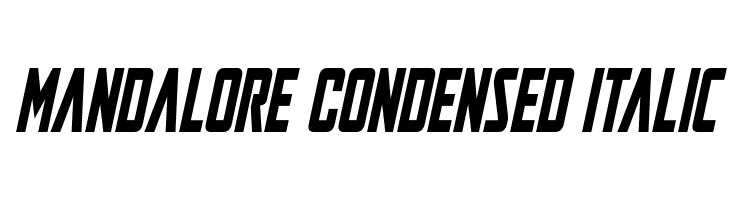
A bold, condensed italic font with a modern and dynamic style.
A bold, italicized font with a futuristic and dynamic style.
A bold, angular, and futuristic font with a dynamic slant.